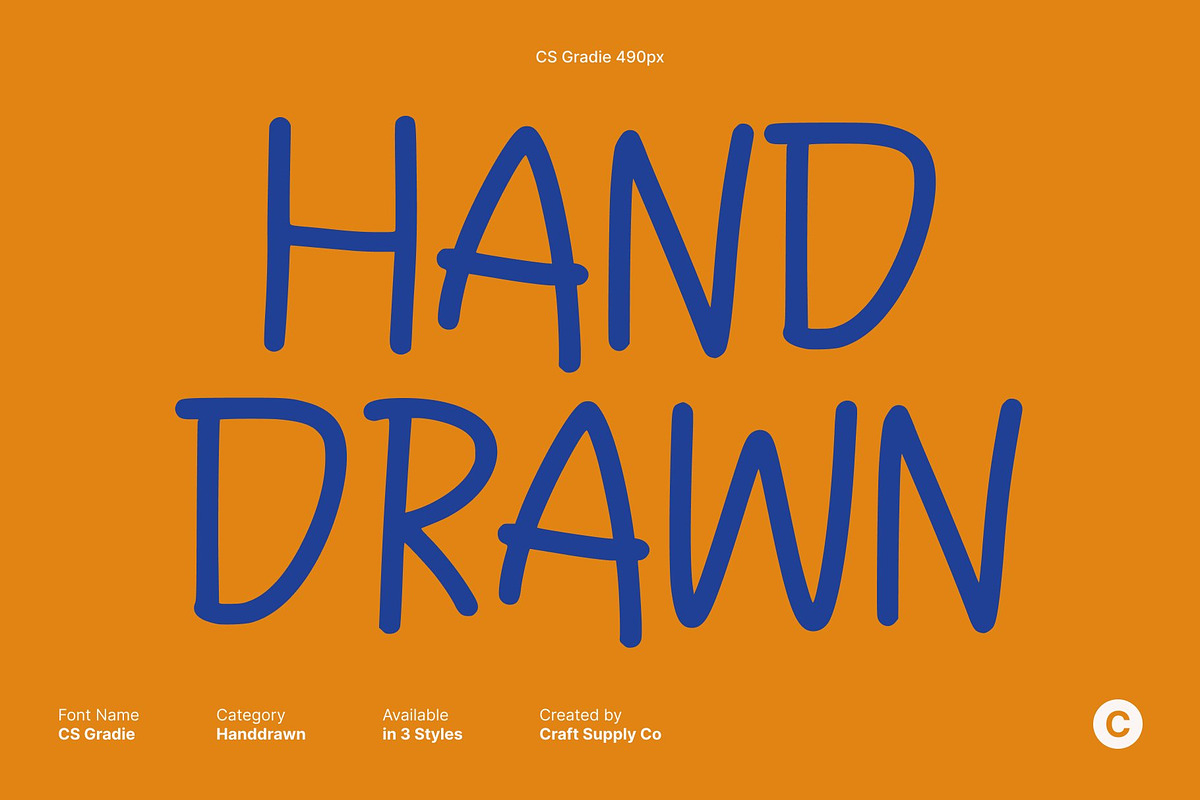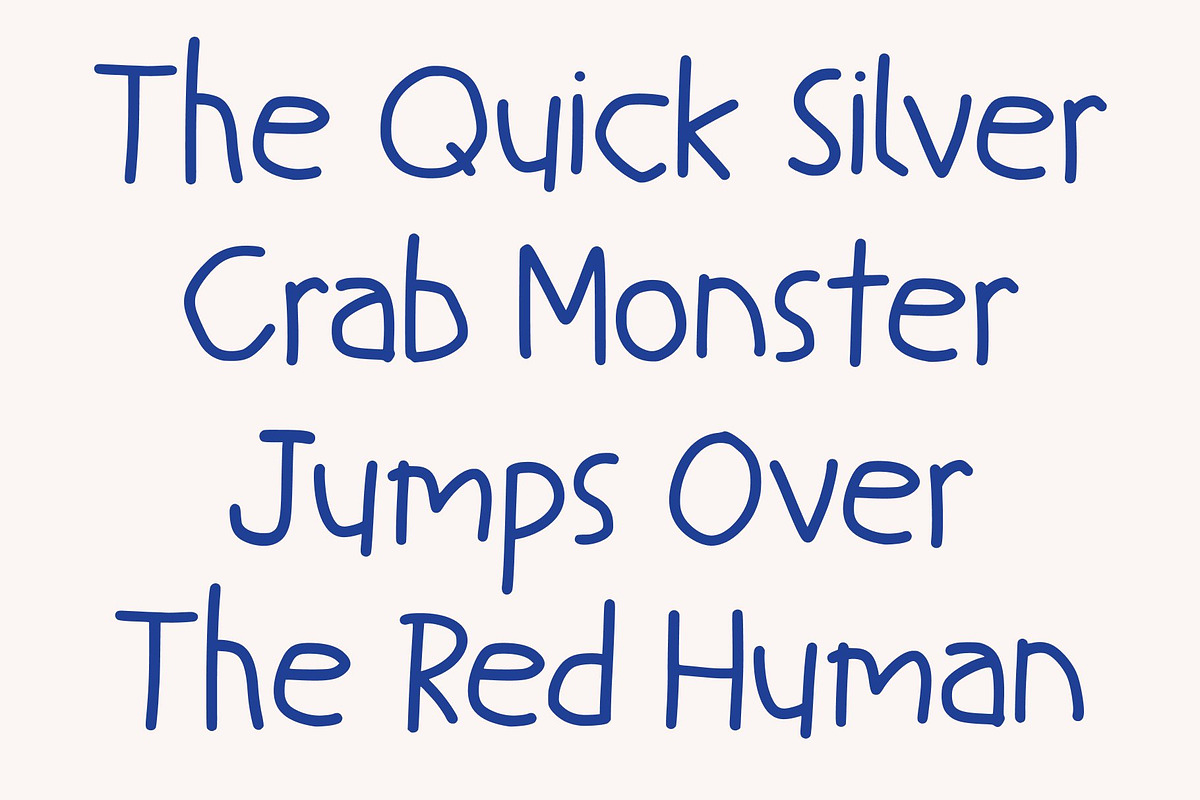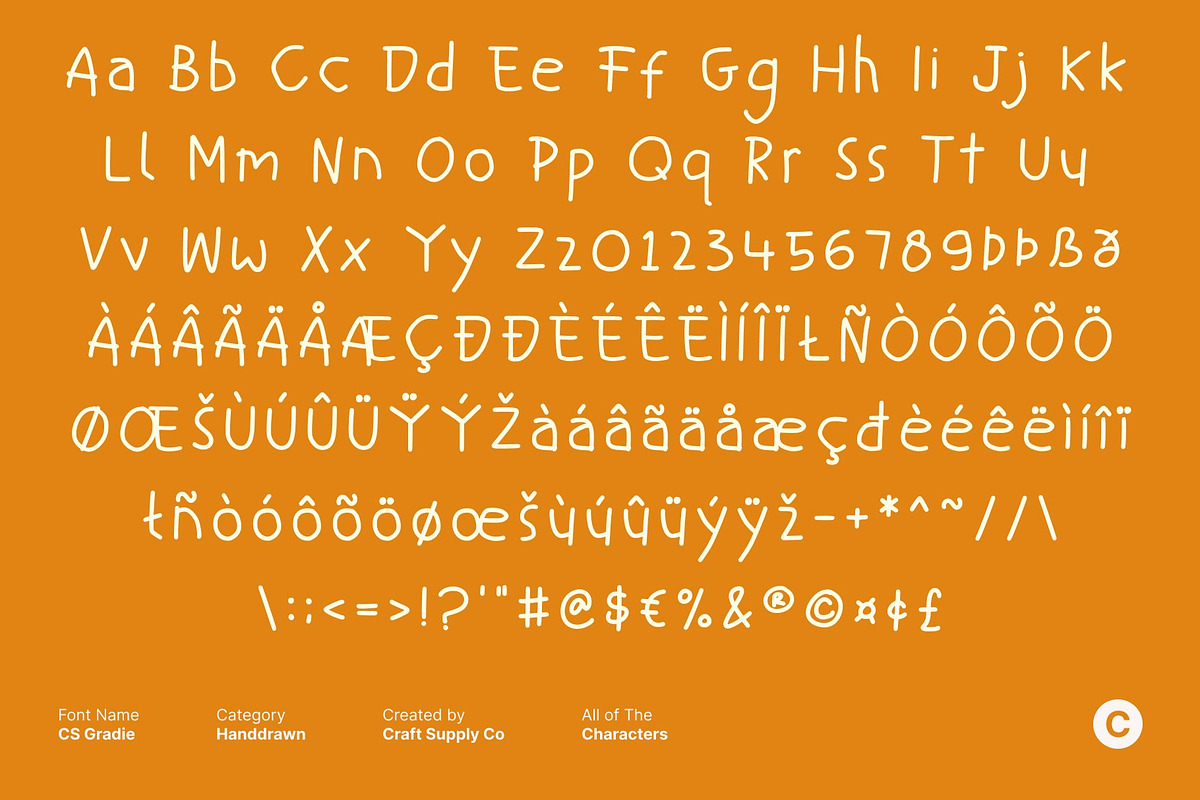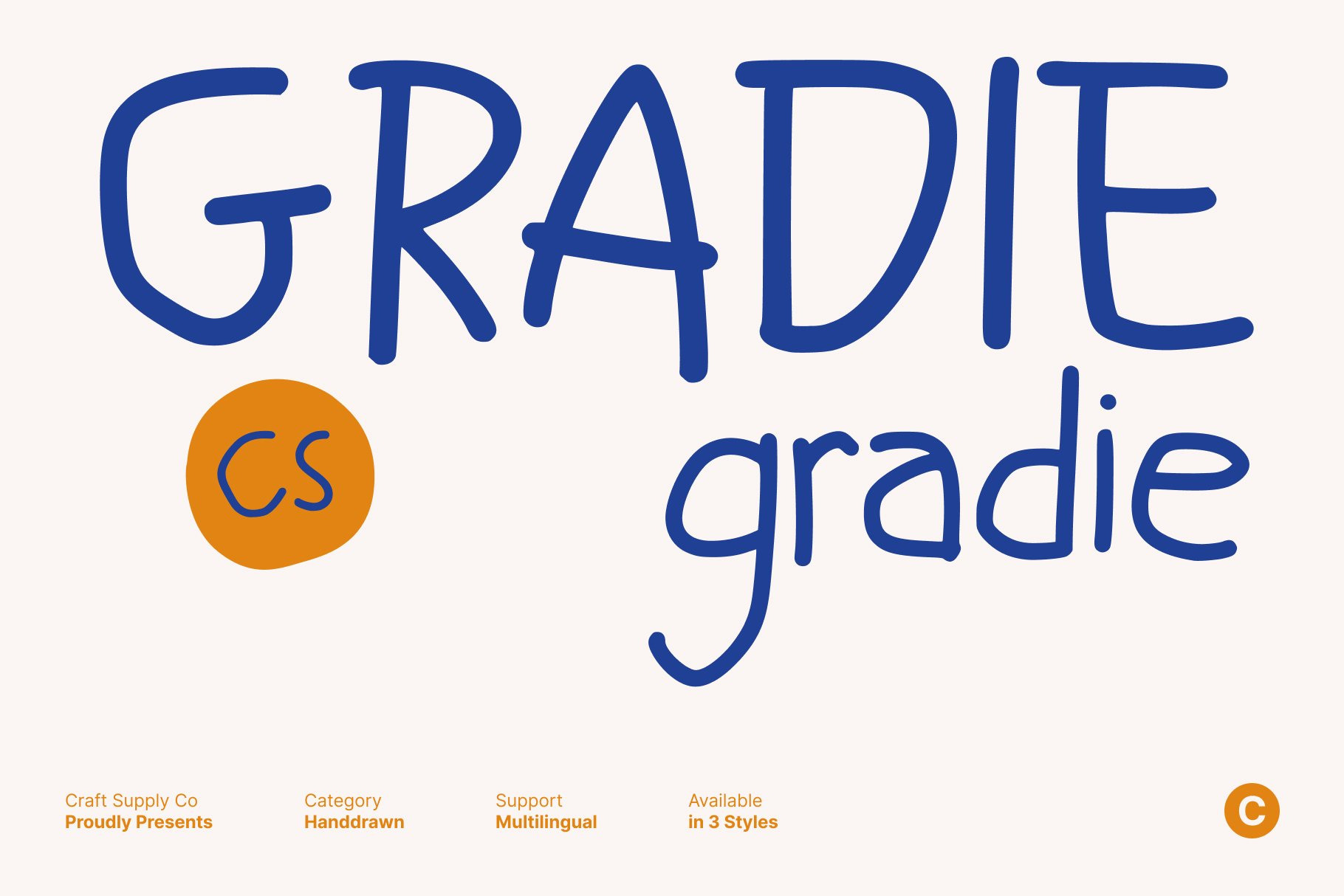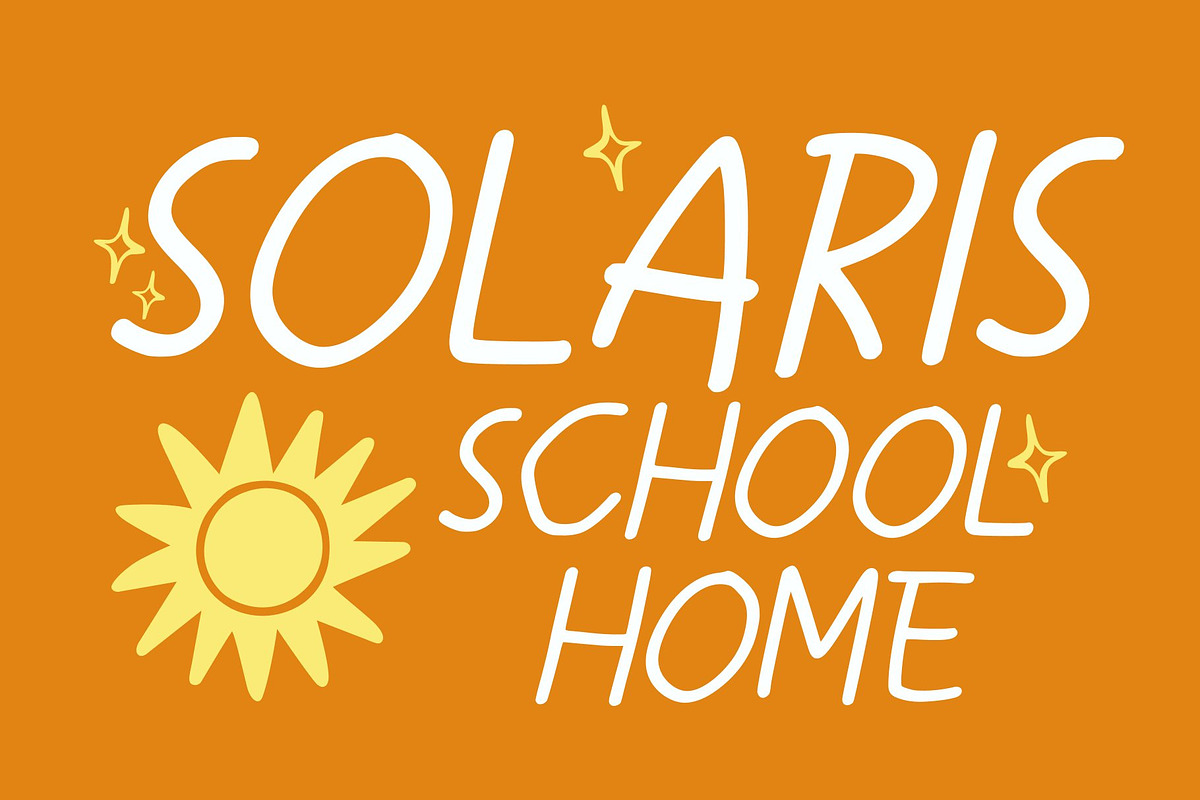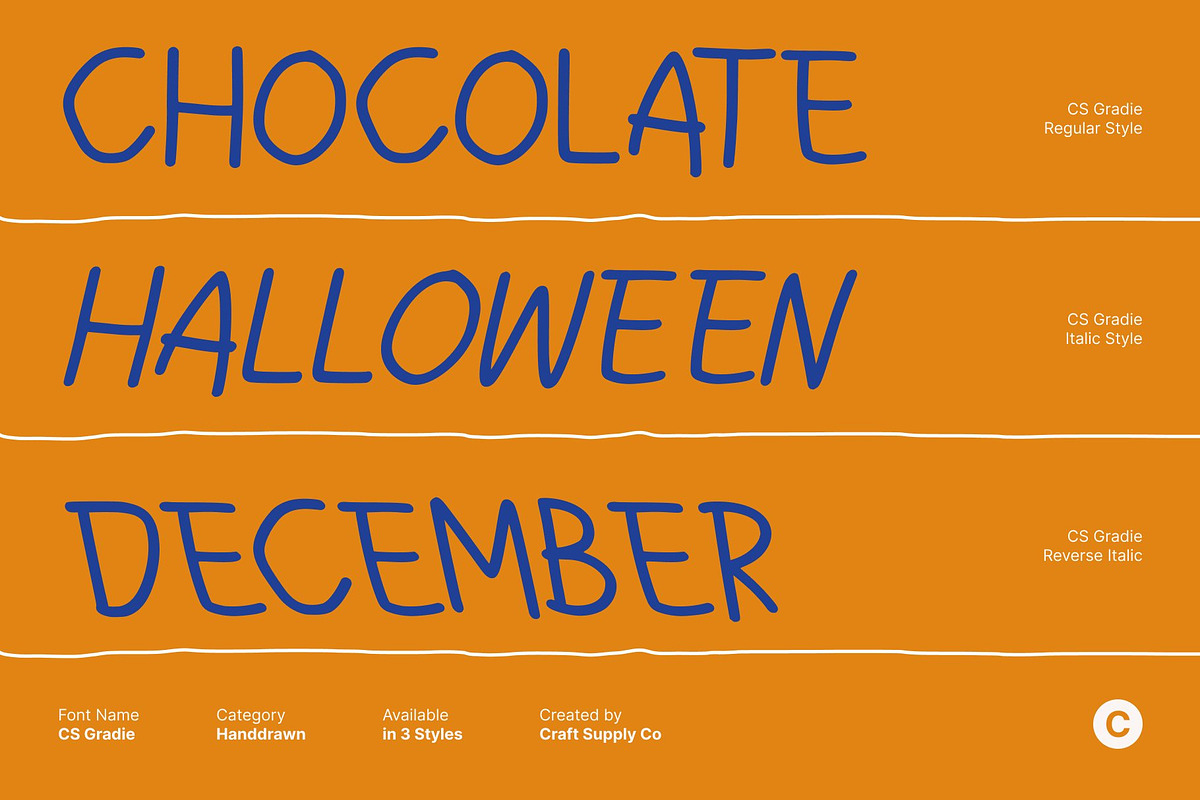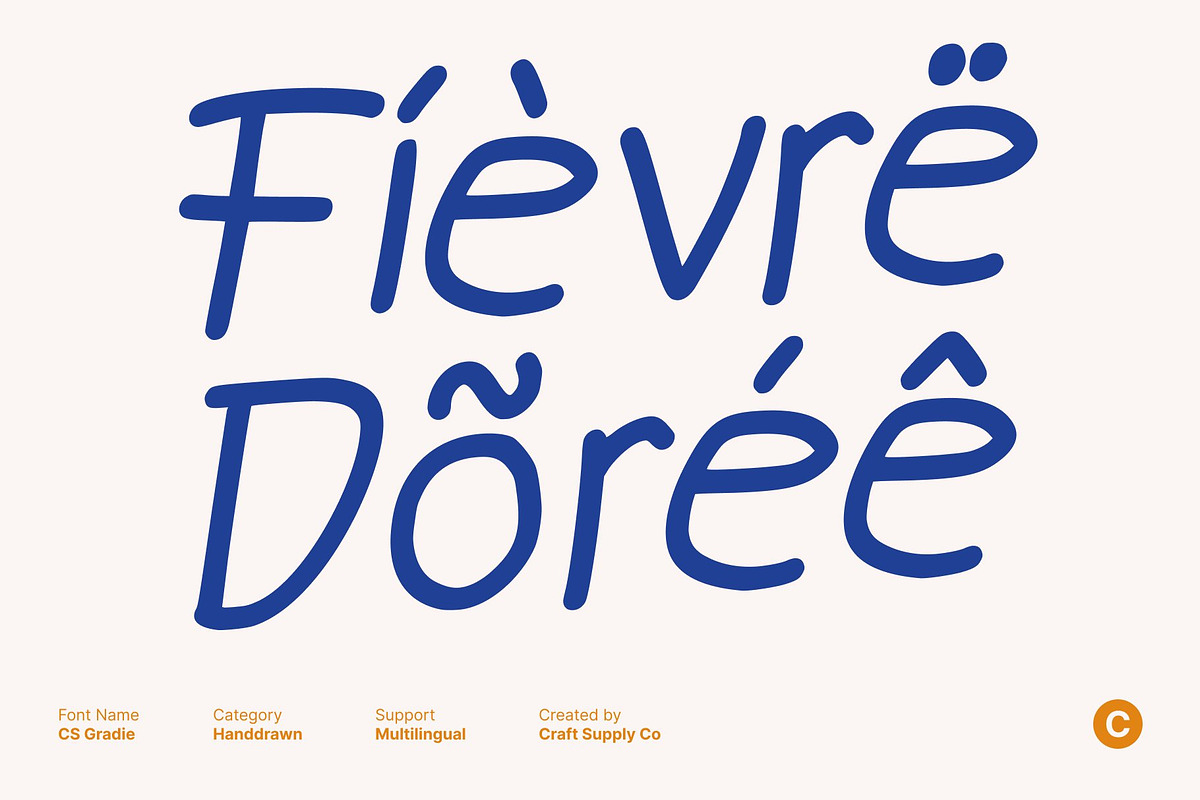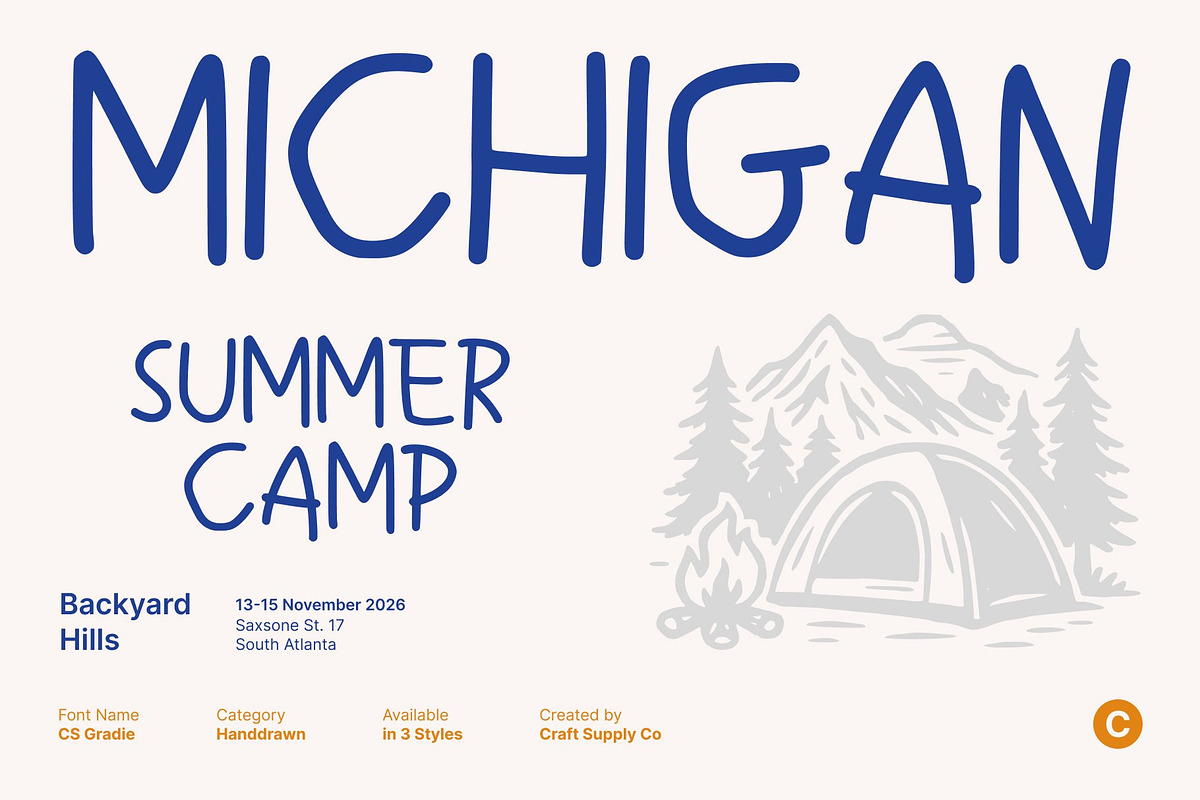
CS Gradie – Handwriting Font
CS Gradie – Warm Handwriting Style with Playful, Kid-Like Charm
Handwriting Authenticity with a Playful Messy Touch This is a handwriting-inspired display font that captures the warmth, spontaneity, and imperfect charm of real pen strokes. Designed with a hint of kid-like messiness, it brings an authentic handwritten feel that’s full of personality and youthful energy. Each letter embraces natural movement and imperfect flow, making perfect for designers who want to add a friendly, expressive, and handcrafted touch to their work.
Warm Strokes for a Genuine, Approachable Look The organic pen-style strokes give a deeply personal and welcoming presence. Its casual flow feels natural and sincere, making any text look heartfelt and expressive. This warmth makes your designs feel more relatable, emotional, and creatively engaging, especially in projects that call for authenticity and playful expression.
Kid-Like Messiness for Fun and Creative Energy This font enhances its handwritten style with a dose of childlike charm slightly messy shapes, lively curves, and spontaneous strokes. This playful imperfection injects fun and imagination into your designs, evoking the joy and creativity of children’s writing.
Perfect for Fun Projects, Children’s Designs, Branding, and Quotes This font shines in fun projects, children’s design, playful branding, quotes, greeting cards, posters, and social media content. Use it for cheerful titles, expressive messages, kid-themed graphics, or creative layouts that need warmth and whimsical personality.
- CS Gradie Regular
- CS Gradie Italic
- CS Gradie Reverse Italic